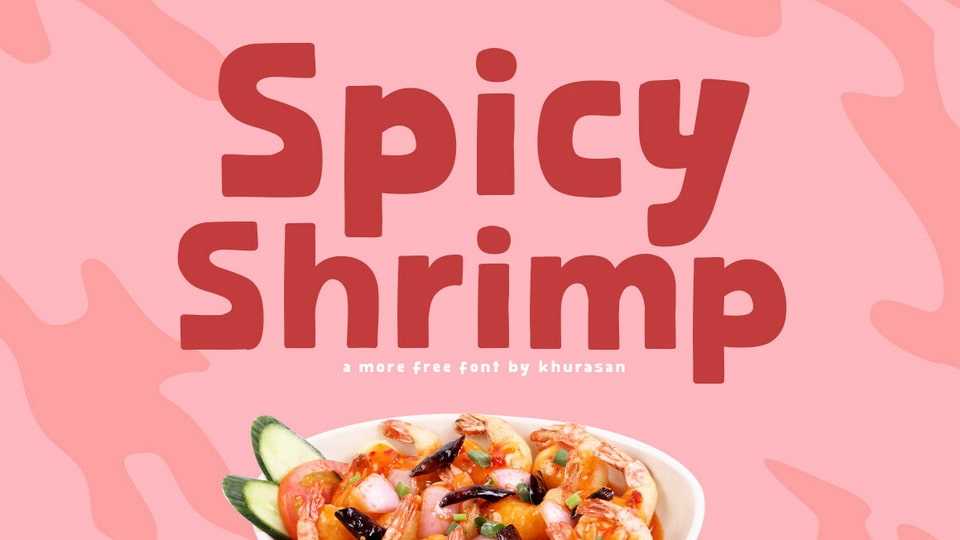
Download Spicy Shrimp font, a chunky and playful hand crafted typeface that adds a delightful touch of creativity and cheer to your designs. Spicy Shrimp font features a robust and energetic design, with each letter exuding a sense of joyful movement.